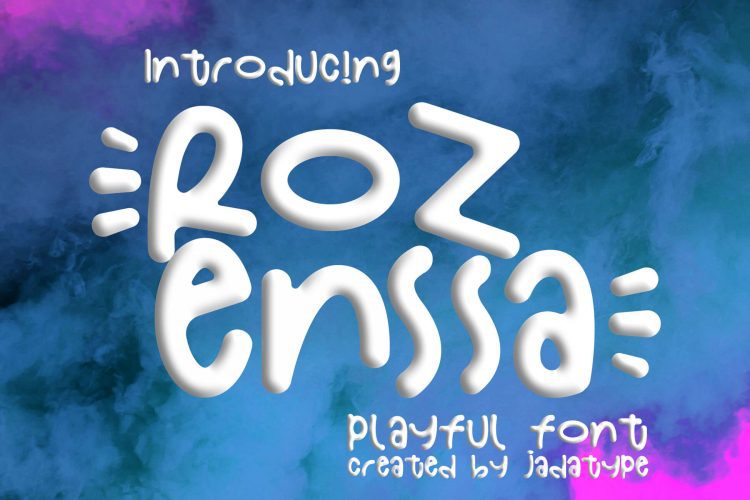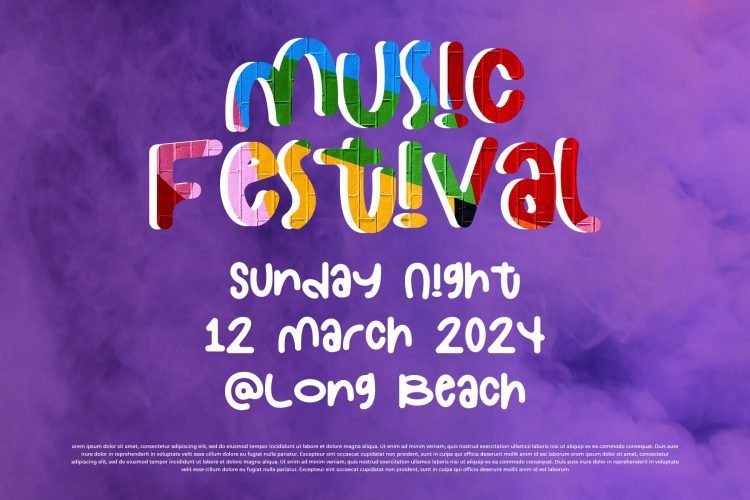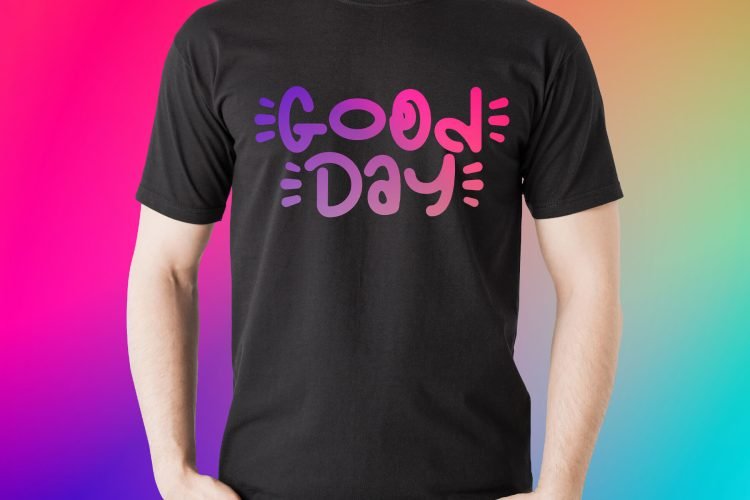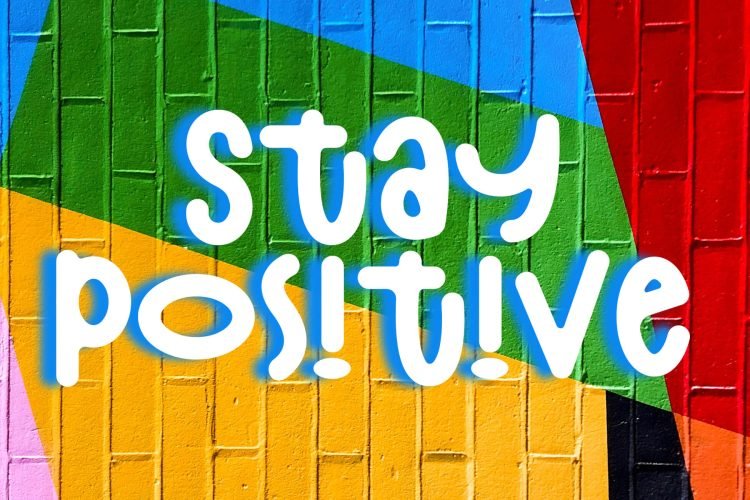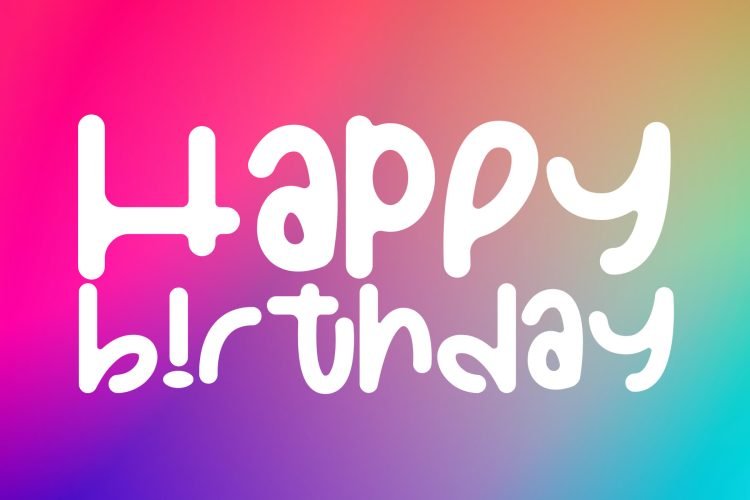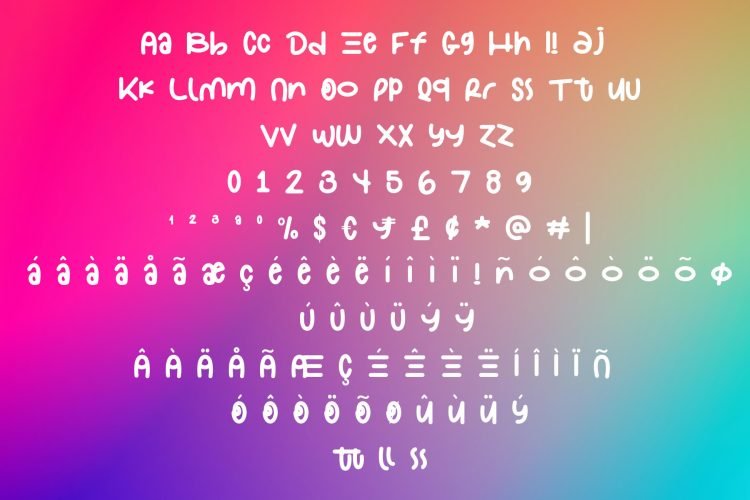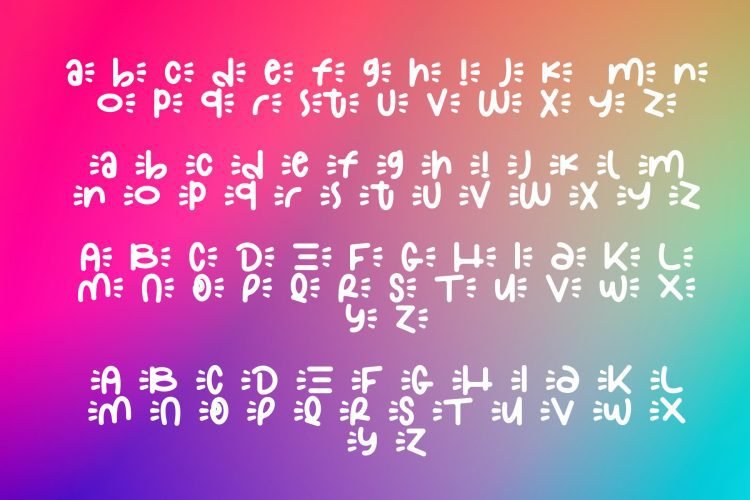
display font
Rozenssa
Description
Rozenssa is a display font with a playful’s vibe. suitable for ads, social media, products, t-shirts, and so on. contains standard English letters, numbers, punctuation, stylish alternates and several accents that support multilingualism.
Rozenssa – Display Font